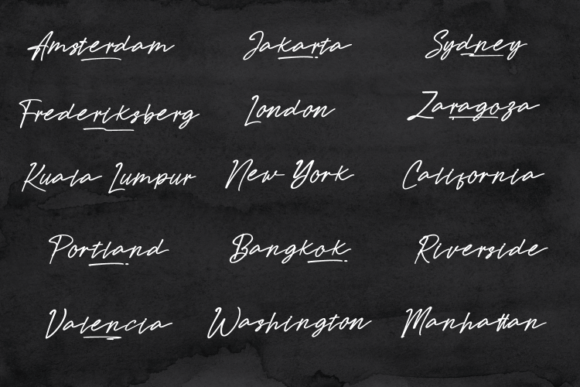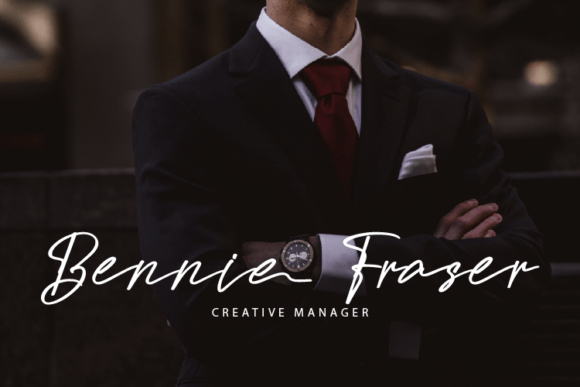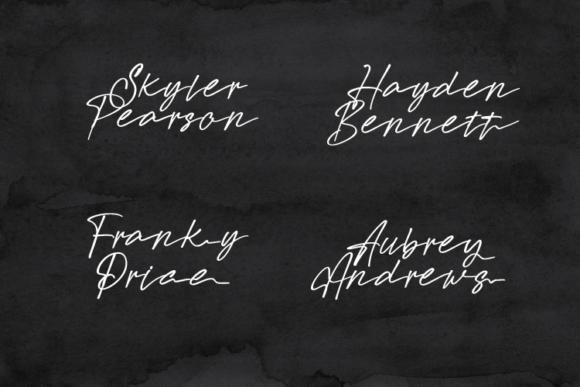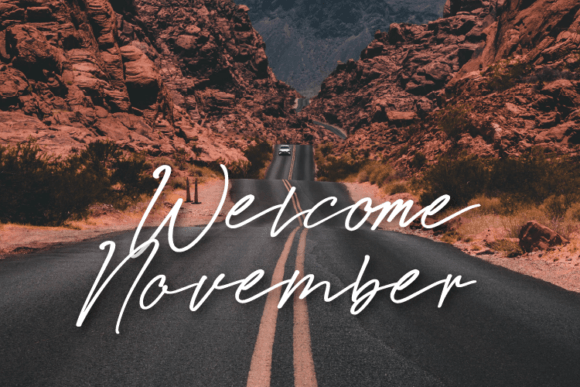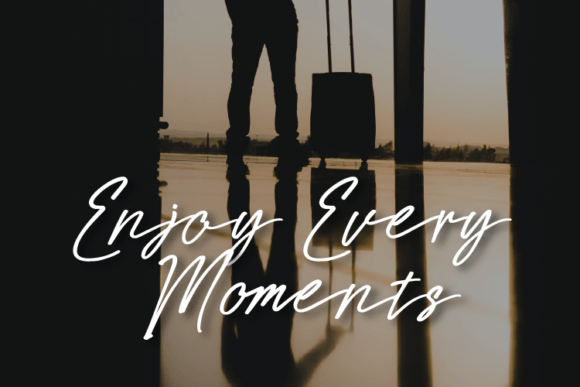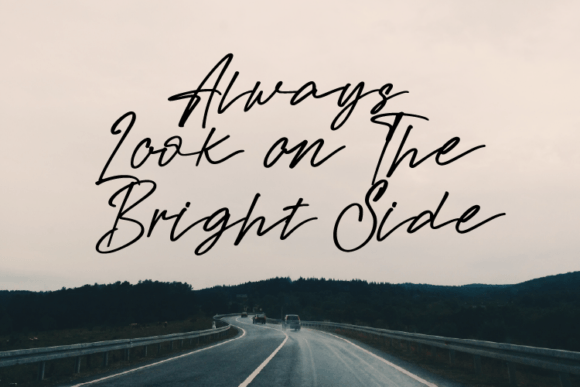
Introducing Hadvenly Font: Elevate Your Designs with a Touch of Elegance
In the world of design, fonts play a crucial role in conveying the message and aesthetic of a project. For crafters, designers, and artists, finding the perfect font can be a game-changer. If you’re on the hunt for a font that exudes elegance, sophistication, and a dash of trendiness, look no further than Hadvenly Font. This stunning signature script-style font is about to become your new go-to for making your designs shine.
What Makes Hadvenly Font Stand Out?
Hadvenly Font boasts an authentic, hand-crafted look that adds a personal and realistic feel to your designs. Its unique blend of classic script elements with a modern twist makes it perfect for a wide range of projects, from wedding invitations and branding materials to packaging and digital media. Whether you’re a professional designer or a DIY crafter, Hadvenly Font is sure to impress.
Key Features of Hadvenly Font
- PUA Encoding: Hadvenly Font is PUA (Private Use Area) encoded, which means you can easily access all the glyphs and swashes without any hassle. This feature allows for greater flexibility and creativity in your designs.
- Trendiness: Hadvenly Font strikes the perfect balance between classic elegance and modern trendiness. Its stylish and sophisticated look will instantly elevate your designs and set them apart from the rest.
- Authentic Look: The font’s authentic, hand-crafted appearance adds a personal touch to your designs, making them look more realistic and engaging.
- Versatility: Hadvenly Font is suitable for a wide range of projects, including but not limited to:
- Branding materials and logos
- Digital media, such as social media graphics and blog headers
Why Designers and Crafters Love Hadvenly Font
Designers and crafters alike adore Hadvenly Font for its versatility, elegance, and ease of use. Here are just a few reasons why:
- Easy to Use: With PUA encoding, accessing glyphs and swashes is a breeze, even for those without extensive design experience.
- High-Quality Design: Hadvenly Font is crafted with attention to detail, ensuring a high-quality design that will make your projects stand out.
- Unique Look: The font’s distinctive, hand-crafted appearance ensures that your designs will have a unique and personalized look.
Tips for Getting the Most Out of Hadvenly Font
To maximize the potential of Hadvenly Font, here are a few tips to keep in mind:
- Experiment with Swashes: Take advantage of the font’s PUA encoding to experiment with different swashes and glyphs, adding a personal touch to your designs.
- Mix and Match: Combine Hadvenly Font with other fonts to create a unique and visually appealing design.
- Pay Attention to Kerning: Adjust the kerning to ensure that your text looks balanced and visually appealing.
Hadvenly Font is a game-changer for designers and crafters looking to add a touch of elegance and sophistication to their projects. With its authentic, hand-crafted look, PUA encoding, and trendiness, this signature script-style font is sure to become a favorite in your design arsenal. Whether you’re working on a wedding invitation, branding materials, or digital media, Hadvenly Font is the perfect choice for making your designs come to life.